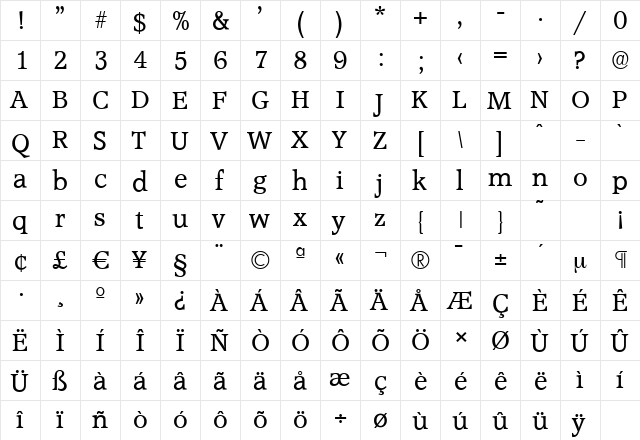
AccoladeSerial Regular
Design Context for AccoladeSerial Typeface
AccoladeSerial is a composed and adaptable typeface that performs quietly and consistently across a wide range of design contexts.